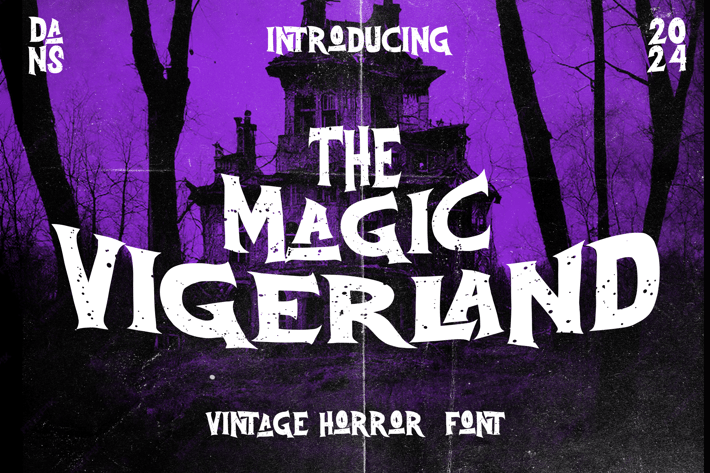
The Magic Vigerland Horror Metal Y2k Graffiti Font
The Magic Vigerland Horror Y2k Graffiti Font
The Magic Vigerland Horror Y2k Graffiti Font is a distinct, highly detailed, and Horror Y2k Graffiti Font.
It would make a great choice for exquisite Music, Poster, retro-urban designs, business branding, logos, vintage designs, and more.